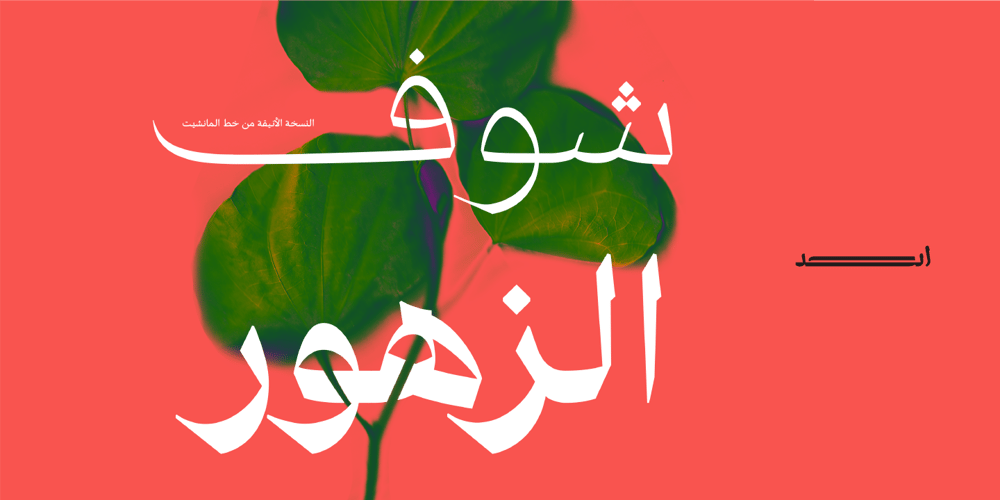
Manchette Fine
Manchette Fine font
Manchette Fine Font Family was designed by Ali Almasri and published by Abjad. Manchette Fine contains 11 styles and family package options. Manchette Fine is the high contrast cut of Manchette typeface, which was inspired by the hand-written Naskh newspaper headlines during the 60s-70s era in the Arab world. The word “manchette” is a french word, that means headline. It was used mainly by the Egyptian calligraphers and designers.The typeface presents sharp and contemporary details, while taking into consideration the original Naskh rules to echo the elegancy of the hand-written titles. Featuring many opentype features, such as contextual alternates, ligatures, and a small set of stylistic alternates. The typeface also features a dynamic Kashida that can be controlled through the variable fonts technology in the Variable GX file which contains all the weights as well.